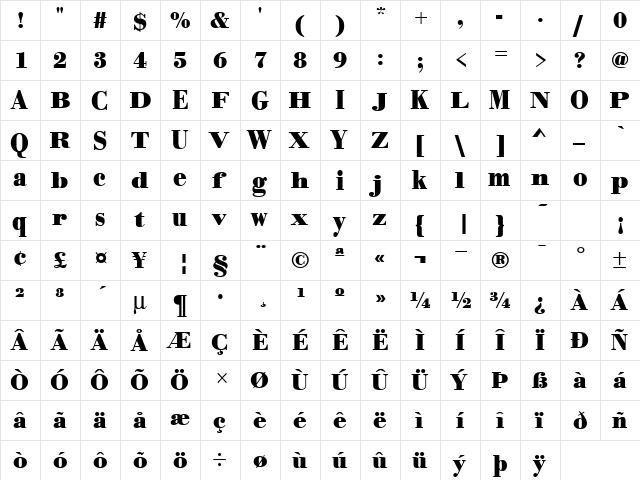
United Regular
Design Context for United Typeface
United takes a measured approach to typography — its balanced proportions and neutral character make it a reliable workhorse for both digital and print work.
Pro Tip: Use United in both headline and body roles to test its range before committing to a single application.